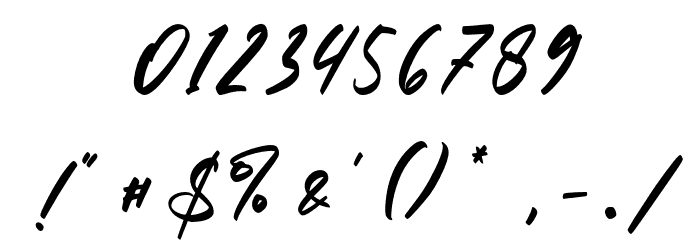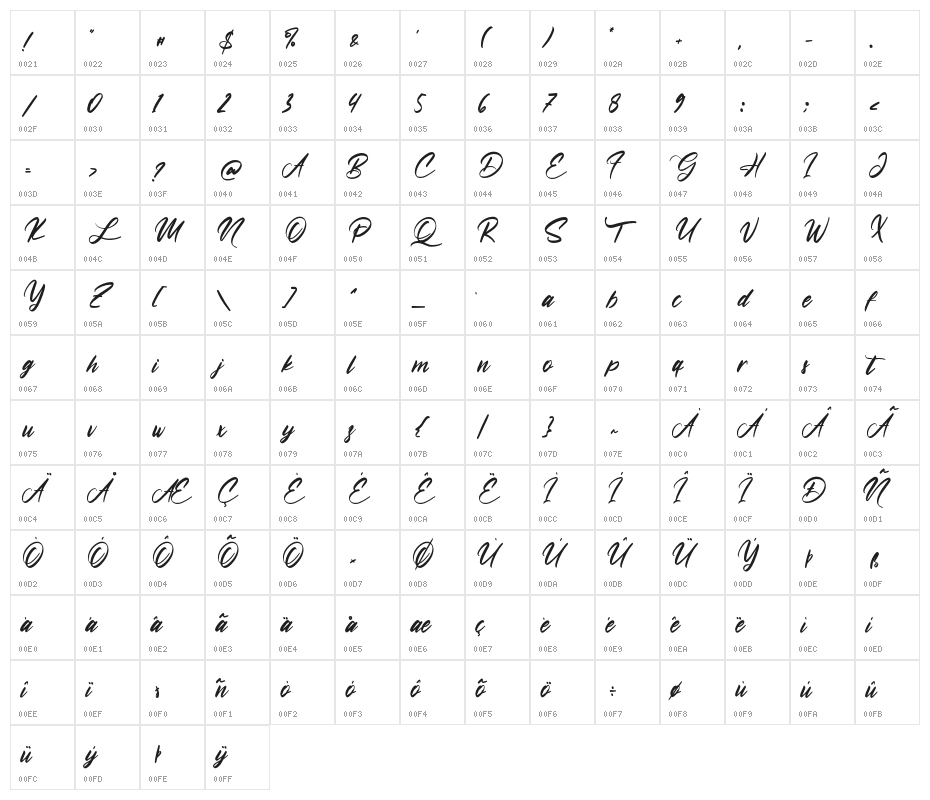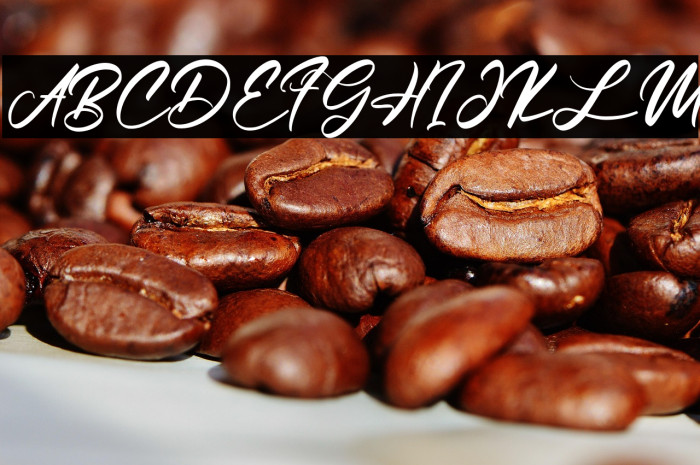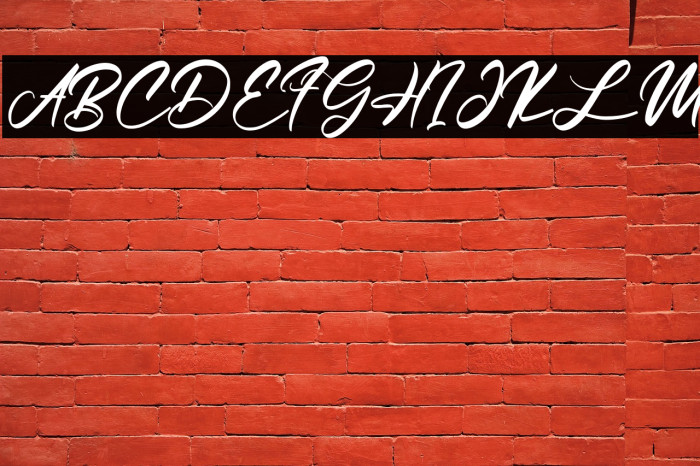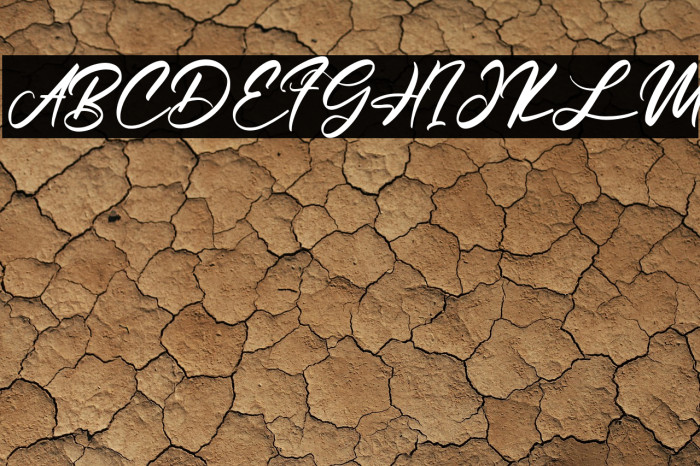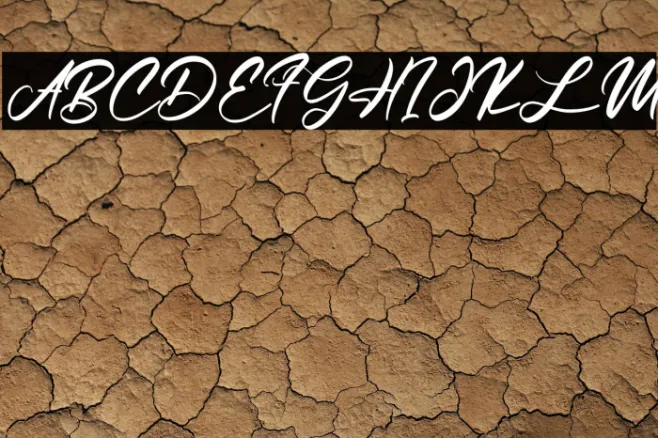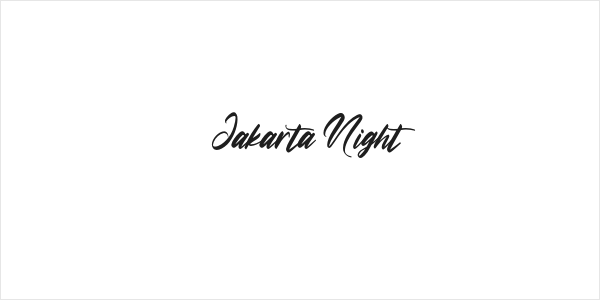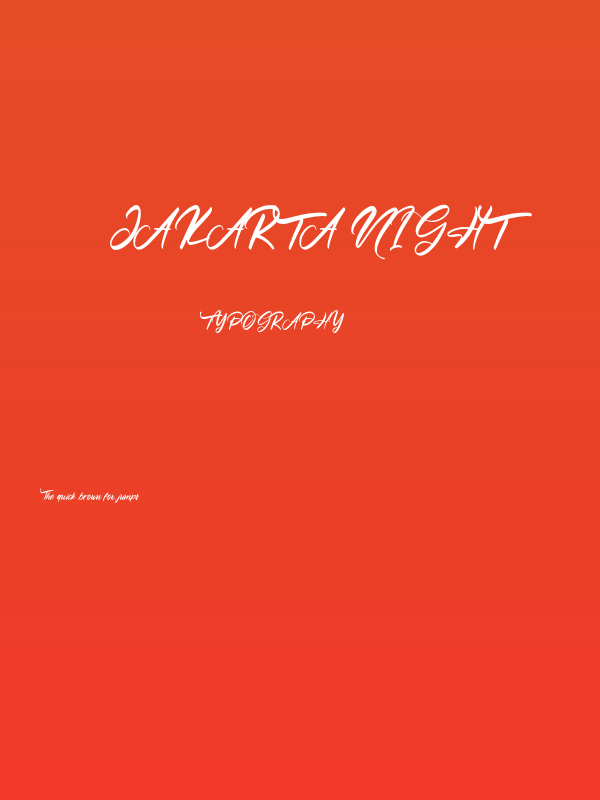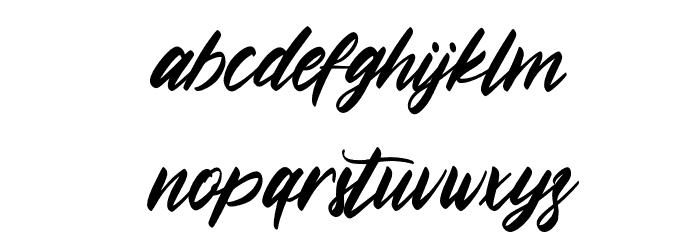
Jakarta Night Font
Jakarta Night Description
This font features a dynamic and flowing script style, characterized by its elegant and cursive letterforms. The uppercase letters exhibit a graceful, sweeping motion with varying stroke widths, giving a sense of movement and sophistication. The lowercase letters maintain a consistent fluidity, with smooth connections between characters, enhancing readability while preserving the artistic flair. Numbers and special characters are crafted with the same attention to detail, ensuring a cohesive look across all elements. The overall design is reminiscent of traditional calligraphy, yet it maintains a modern appeal suitable for various creative applications.